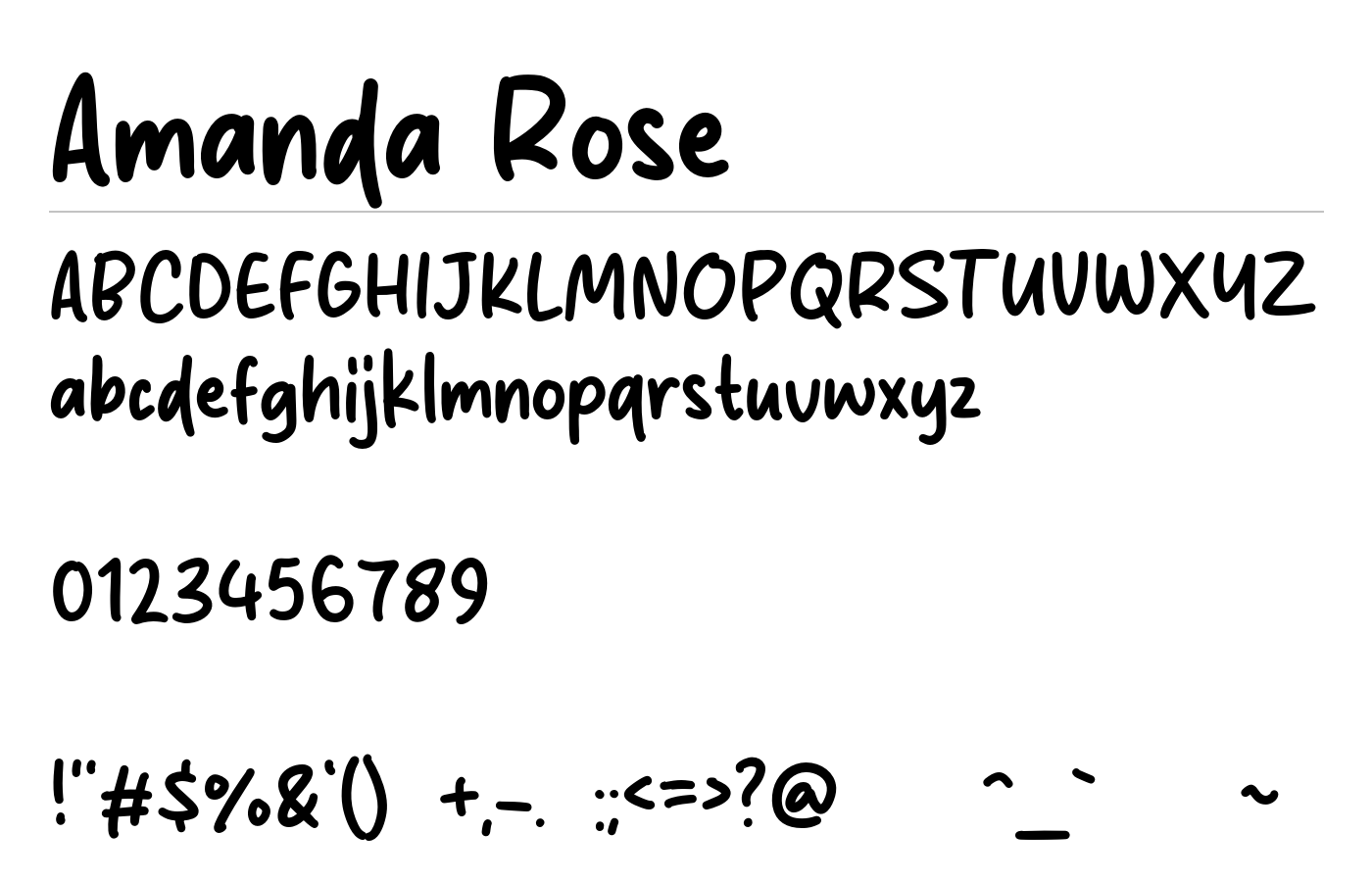
Amanda Rose is a friendly and casual handwritten sans serif font with a warm, approachable feel. Its rounded, slightly uneven strokes give it a playful and personal touch, making it ideal for informal designs like greeting cards, children’s books, and lifestyle branding. This font works well in headlines and short text, conveying friendliness and creativity without sacrificing readability.
Amanda Rose Font
About Amanda Rose Font